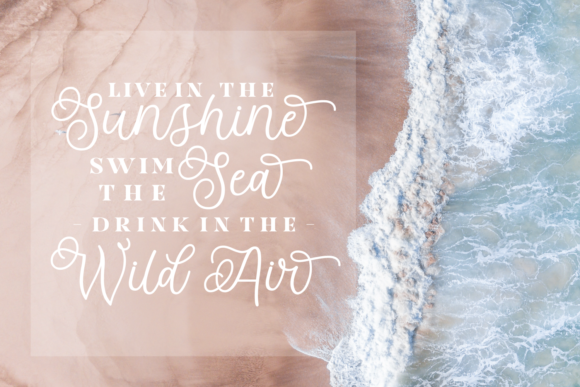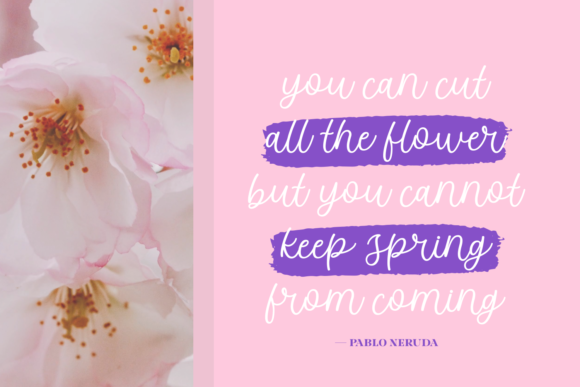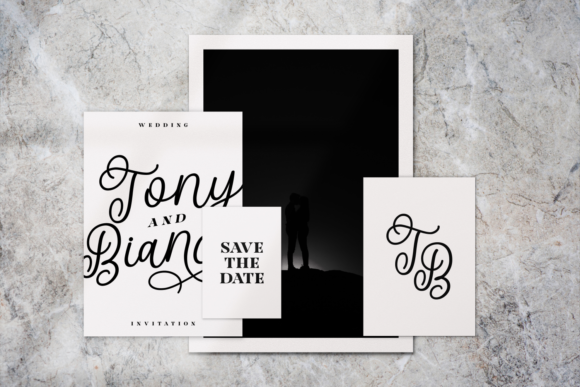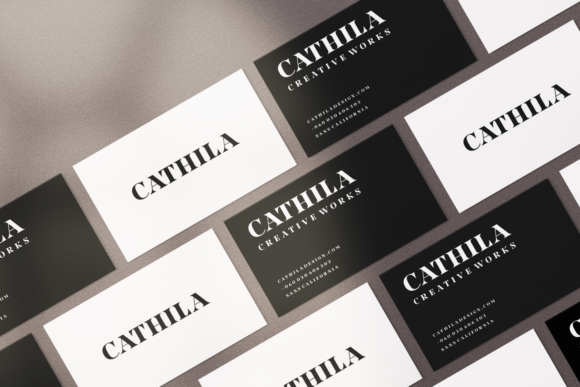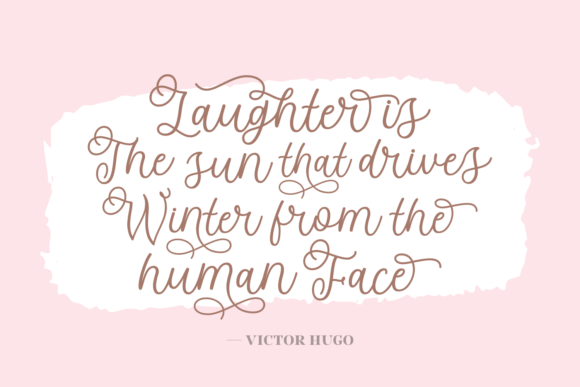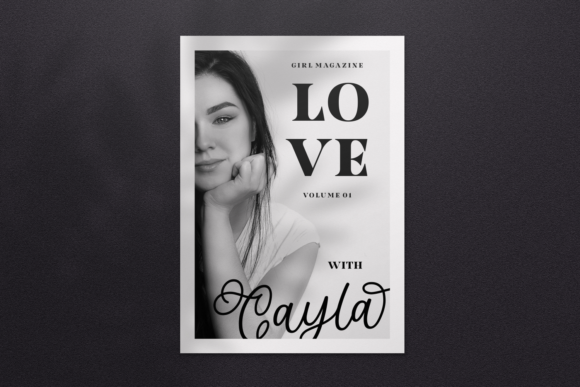
The Perfect Pair: Unlocking the Beauty of Cathila & Nesdate Font
Have you ever been stuck in a creative rut, staring at a blank page with no idea where to start? It’s a feeling we’ve all been there. But then, the perfect font combination comes along, and suddenly, ideas start flowing. For me, it was when I discovered the stunning duo of Cathila & Nesdate Font. This carefully hand-crafted script font, paired with a neat, playful serif font, is the ultimate game-changer for any designer.
Whether you’re working on a branding project, designing a website, or creating a social media campaign, Cathila & Nesdate Font is the perfect pair to elevate your designs. Its versatility and unique blend of styles make it a valuable asset for any designer looking to add a touch of sophistication and whimsy to their work.
Cathila & Nesdate Font Key Features
- Unique Characteristics: Cathila & Nesdate Font features a unique blend of traditional and modern design elements, with intricate details and ornate flourishes, making it a distinctive choice for designers and typographers.
- Font Style: The font is available in both regular and bold weights, offering flexibility for use in various design applications, from body text to headlines and titles.
Cathila & Nesdate Font Review
Overall, I think Cathila & Nesdate Font is a unique and visually appealing font that can add a touch of elegance to any design project. Here are some things that work well: ✨
- Distinctive aesthetic: The font’s blend of classic and modern elements makes it stand out from more traditional serif fonts.
- High legibility: The font is easy to read, even at smaller sizes, which is a major plus for designers who need to ensure their text is readable across various devices.
- Good for branding: The font’s unique style makes it perfect for creating a memorable brand identity.
- Limited font sizes: The font may not be the best choice for very large or very small text sizes, as it can become difficult to read.
- Lack of language support: The font may not support all languages, which could be a limitation for designers working on projects that require multiple languages.
- May not be suitable for body text: The font’s distinctive style may make it better suited for headlines or titles rather than body text.
Overall, I think Cathila & Nesdate Font is a great choice for designers who want to add some personality to their projects. While it may have some limitations, its unique style and high legibility make it a great option for the right projects.
Tips: Use Cathila & Nesdate Font for headings and titles to add a touch of elegance to your design.
Cathila & Nesdate Font is suitable for:
– Fashion and beauty branding
– Luxury product design
– High-end marketing materials
– Creative and artistic projects